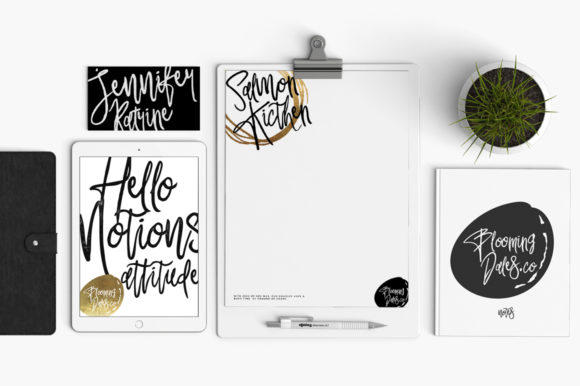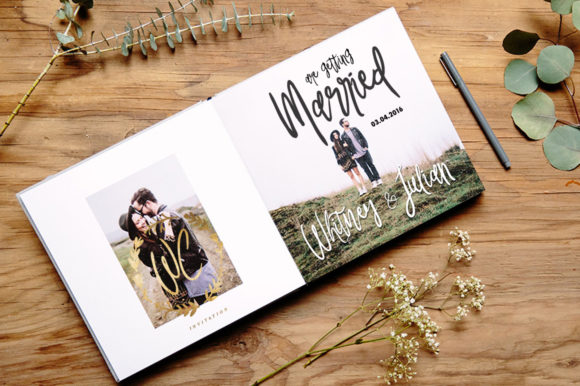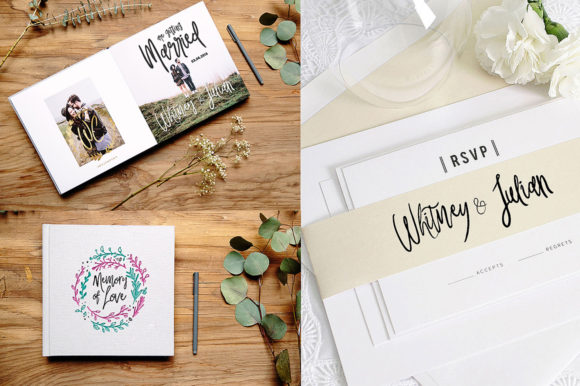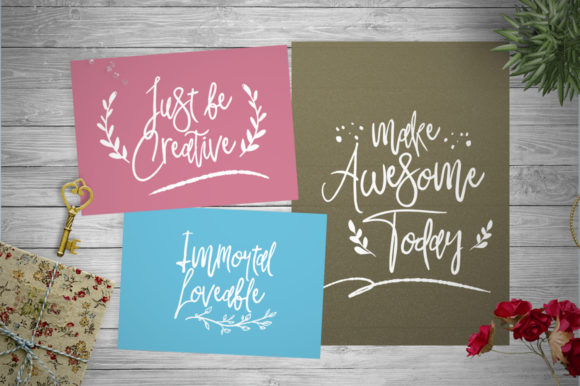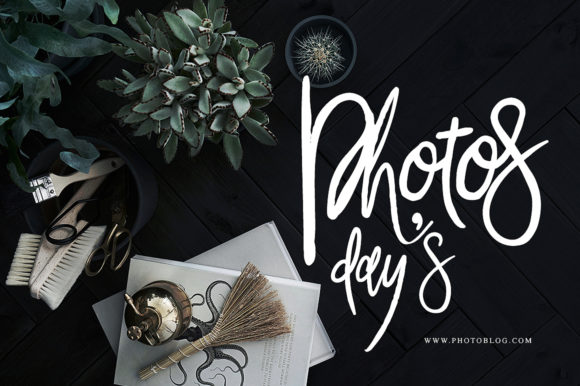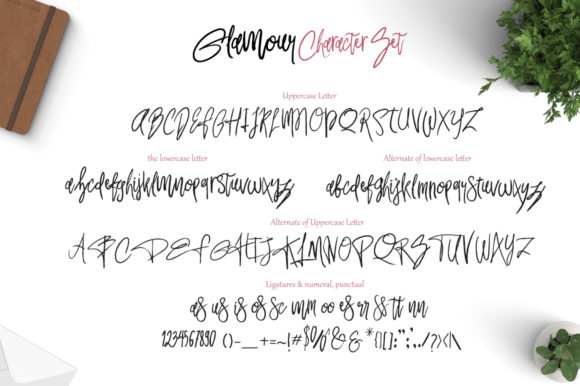
Glamour & Beauty Font: Elevate Your Designs with Elegance
In the world of typography, a font can make all the difference in conveying the right message and aesthetic to your audience. For designers and crafters looking to add a touch of sophistication and glamour to their projects, the Glamour & Beauty font is an exceptional choice. This stunning handwritten font embodies the perfect blend of classic elegance and modern freshness, making it an incredibly versatile tool for a wide range of creative endeavors.
The Essence of Glamour & Beauty Font
Glamour & Beauty simplifies elegance into one truly outstanding handwritten font. It maintains its classy calligraphic influences while feeling contemporary and fresh. This unique combination allows designers and crafters to infuse their projects with a sense of luxury and refinement without compromising on modern appeal. Whether you’re working on letterheads, titles, stationery, or any other design project, Glamour & Beauty font offers the perfect balance of sophistication and trendiness.
Key Features of Glamour & Beauty Font
- Classy Calligraphic Influences: The font retains the graceful and fluid strokes characteristic of calligraphic writing, adding a level of elegance to any text.
- Contemporary and Fresh: Despite its classic roots, Glamour & Beauty feels modern and current, making it suitable for a variety of design projects that require a touch of modernity.
- Versatility: Its adaptability is one of its most significant advantages. Glamour & Beauty can be used across a spectrum of crafty ideas, from traditional stationery and letterheads to more contemporary titles and branding materials.
- Easy to Read: While being elegant, the font ensures readability, making it practical for use in both headings and body text.
Applications of Glamour & Beauty Font
The versatility of Glamour & Beauty font makes it an invaluable asset for designers and crafters. Here are some of the many applications where this font truly shines:
- Stationery and Letterheads: Add a professional yet personal touch to your correspondence with elegantly designed stationery and letterheads.
- Titles and Headings: Elevate your blog posts, articles, and website content with stylish titles that capture attention and convey sophistication.
- Branding and Logotypes: For businesses looking to establish a luxury brand image, Glamour & Beauty can be a crucial element in creating a memorable logo or brand identity.
- Packaging: Make your product packaging stand out with a font that exudes elegance and class, perfect for high-end products.
- Invitations and Announcements: Whether it’s a wedding invitation, a baby announcement, or any other significant life event, Glamour & Beauty font can help you create stunning and heartfelt invitations.
Tips for Using Glamour & Beauty Font
Glamour & Beauty font is more than just a typeface; it’s a design statement that combines the best of both worlds—timeless elegance and modern flair. Its versatility and aesthetic appeal make it an excellent choice for designers and crafters aiming to add a sophisticated touch to their projects. Whether you’re creating professional documents, crafting beautiful stationery, or designing captivating titles, Glamour & Beauty font is sure to elevate your designs to new heights of elegance and sophistication.